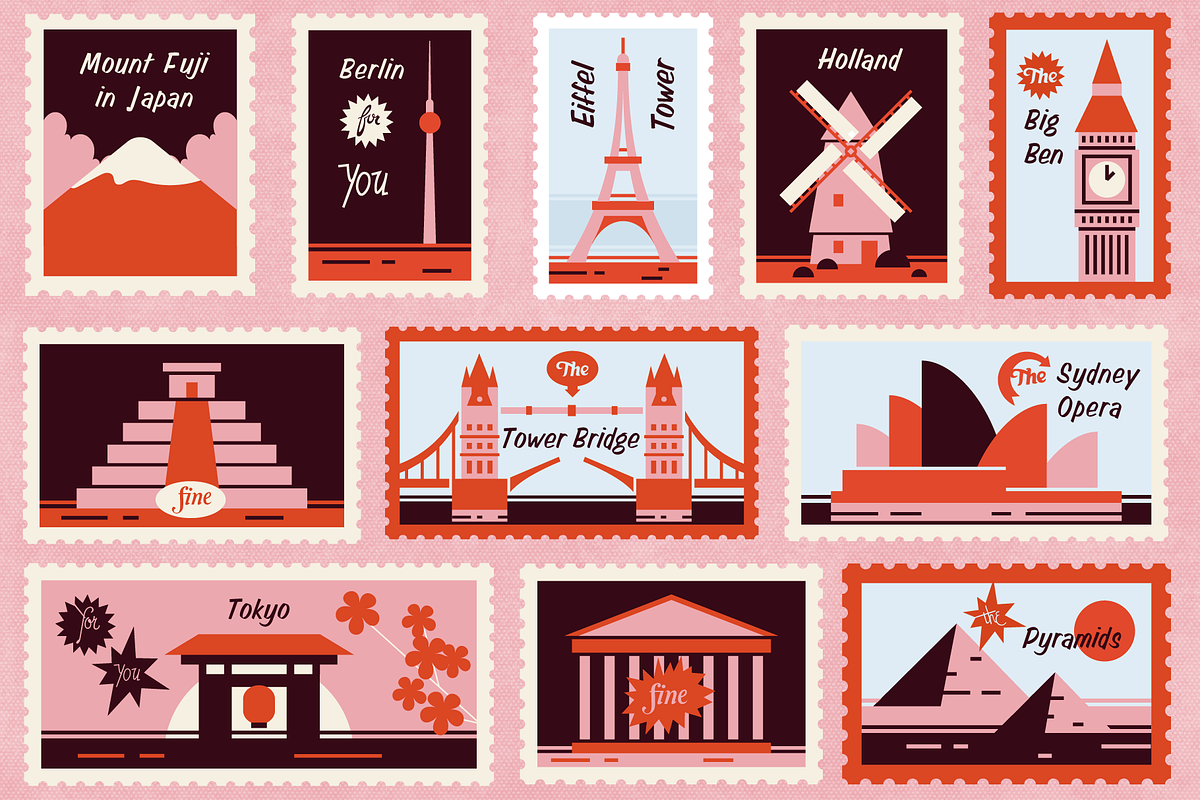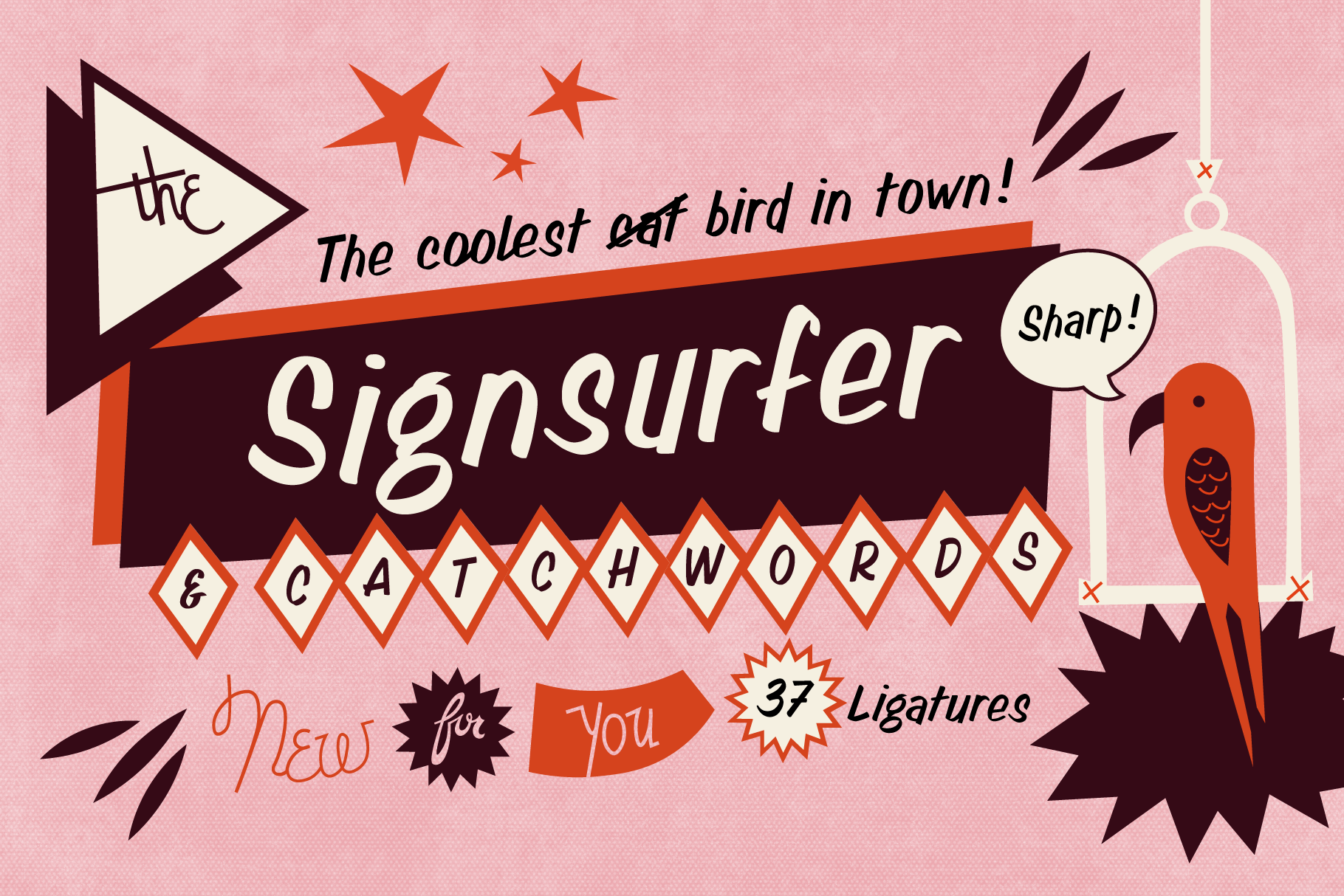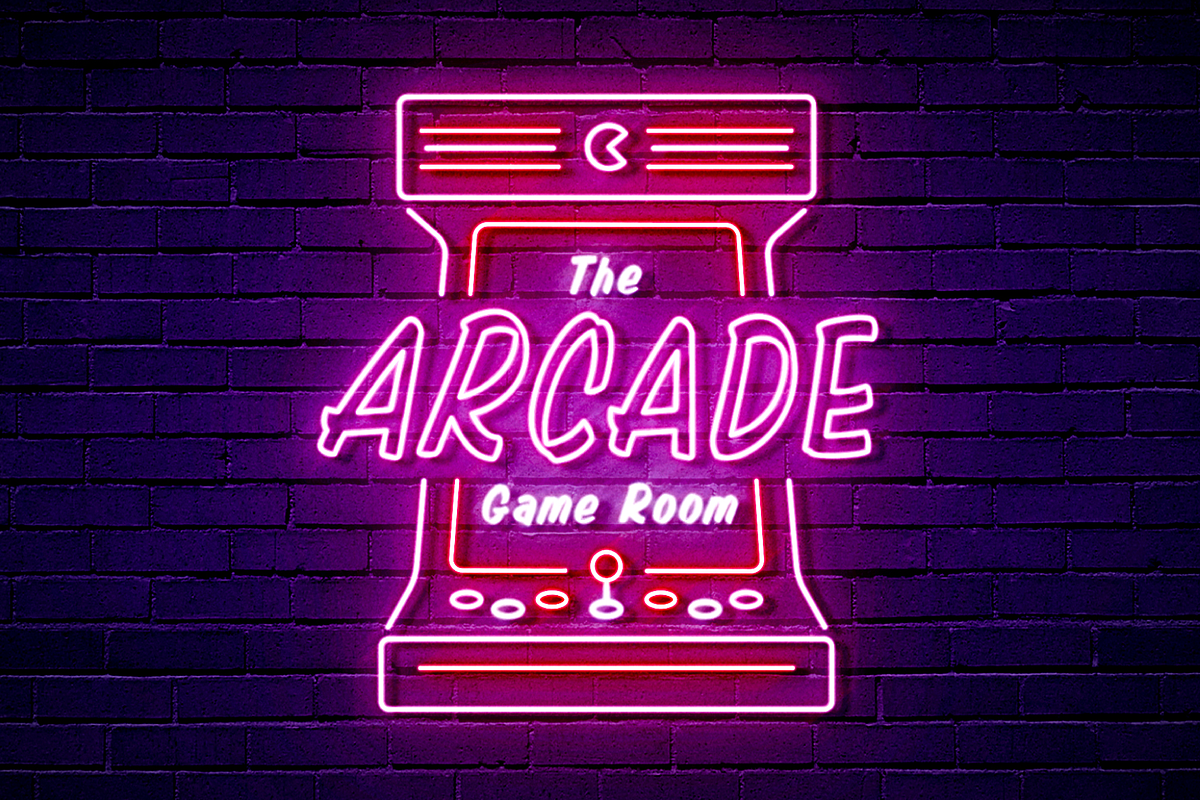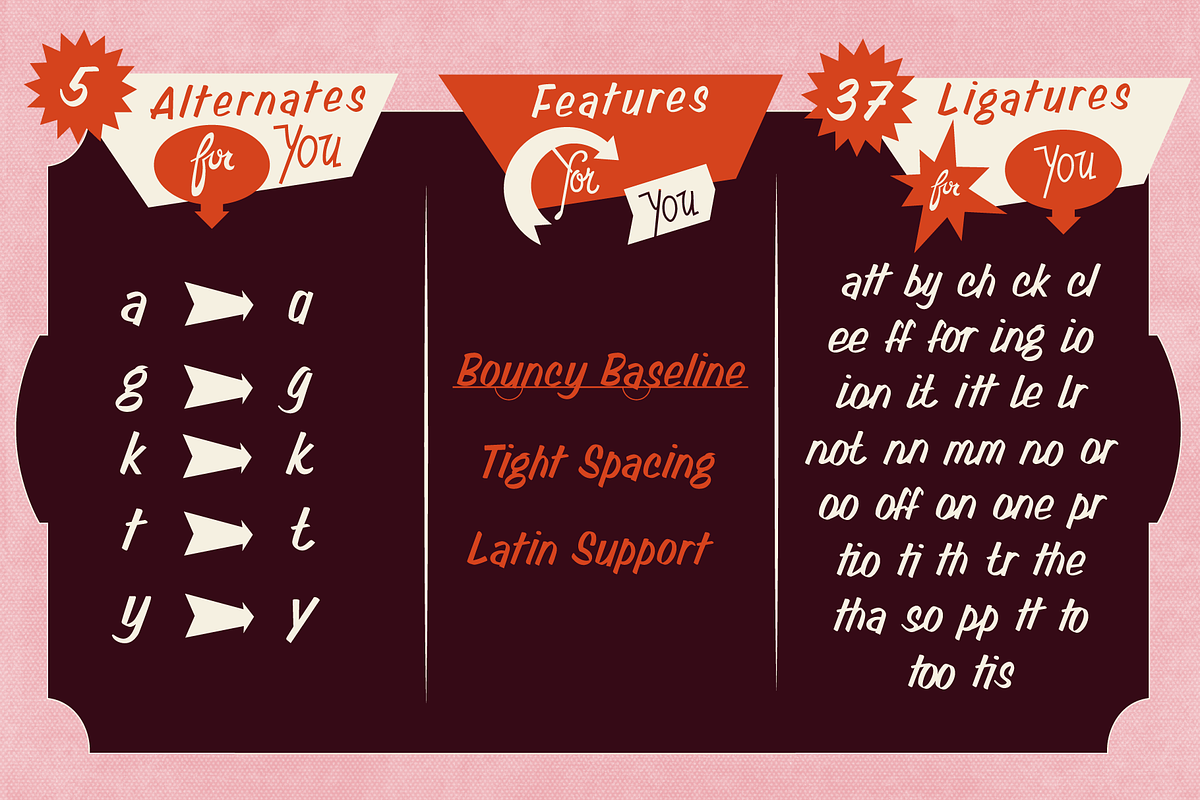
Handwritten signpainter font script
Signsurfer is a unique signpainter handwriting font, handwritten by me. Inspired by the golden ages of handlettering, this script font highlights:
- a bouncy baseline
- tight spacing
- and full Latin support
Lots of really cool catchwords & shapes (you will get all the catchwords & shapes seen in the preview pics), five alternates and 37 ligatures help you to really get creative with this one.
What you can use it for:
- branding
- logotype
- poster
- t-shirt designs
- all kind of labels
- greeting cards
- wedding invitations ...and so much more
This font also works great as a running text, too. = )
Process behind it: first I drew all of those fancy letters & catchwords with a brush on paper. I then carefully traced all of those letters & catchwords in Illustrator and transferred them into my Font Creator program. This helped getting the unique sign painters flow.